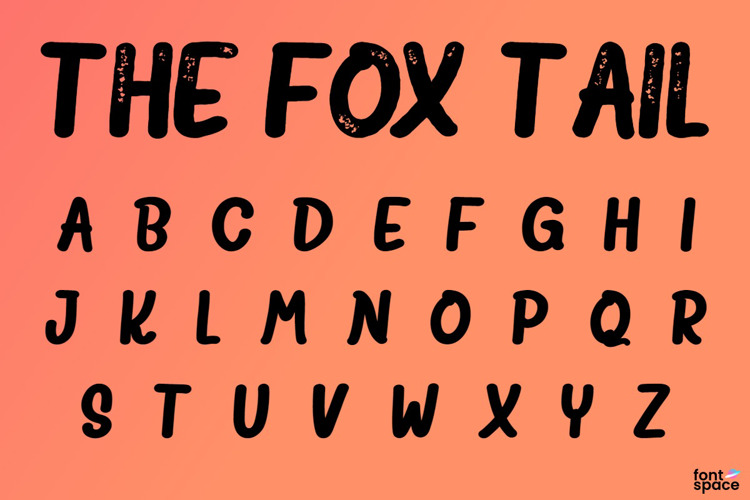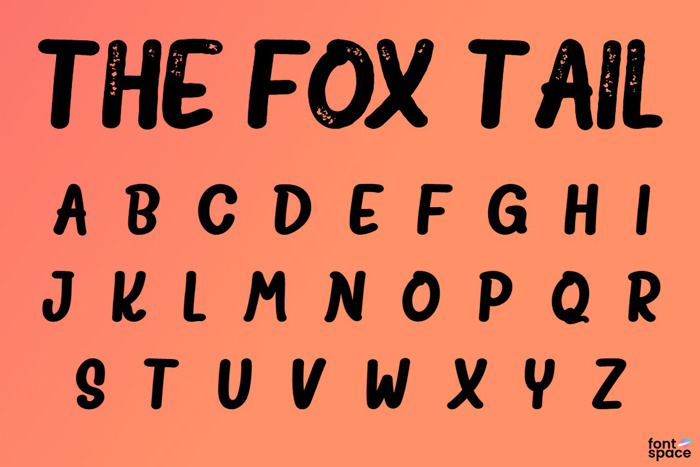
The Fox Tail Sans Font
Sans Style
Hi Font Lovers ! i want to introduce The Fox Tail - Font Duo&Extras. The Fox Tail - Font Duo & Extras is a font that is inspired by the retro style and fox's tail. This font has a unique and interesting shape.
This font will be suitable for logo, branding projects, product packaging,quotes,greeting card and all your other lovely projects.The Fox Tail - Font Duo&Extras comes with retro and unique style. It contains a full set of lower & uppercase letters, a large range of punctuation, numerals, multilingual support and many cute alternates. Features :
Stylistic Alternates Character Set A-Z
Numerals & Punctuations (OpenType Standard) Accents (Multilingual characters)
With retro and unique design, I hope this font can meet your design needs.